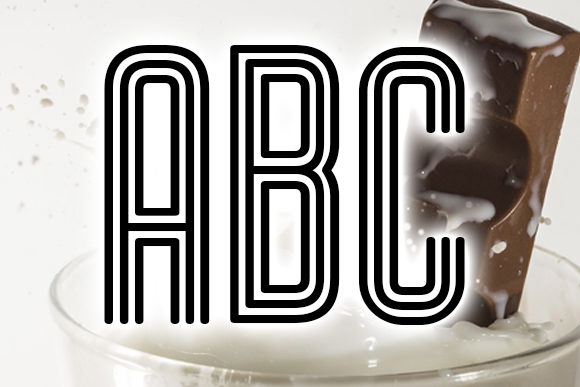
Introduction to Milk and Chocolate Font
The Milk and Chocolate is an awesome tri-lined font with a retro look.
It is great for t-shirts, flyers, posters, and more .
Key Features of Milk and Chocolate Font
Why Choose Milk and Chocolate Font?
Milk and Chocolate Font offers exceptional quality and versatility, making it a valuable addition to your design toolkit. Whether you’re creating for personal projects or commercial use, Milk and Chocolate Font delivers professional results.